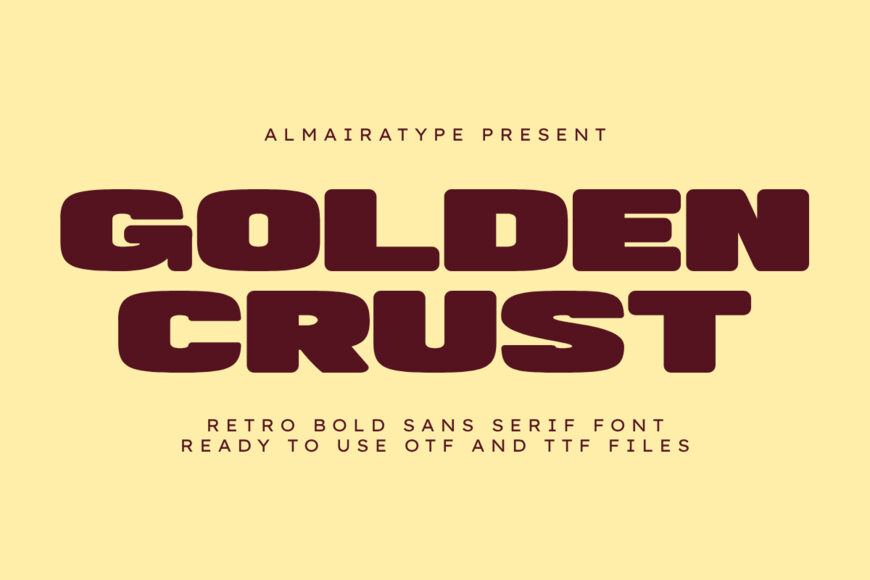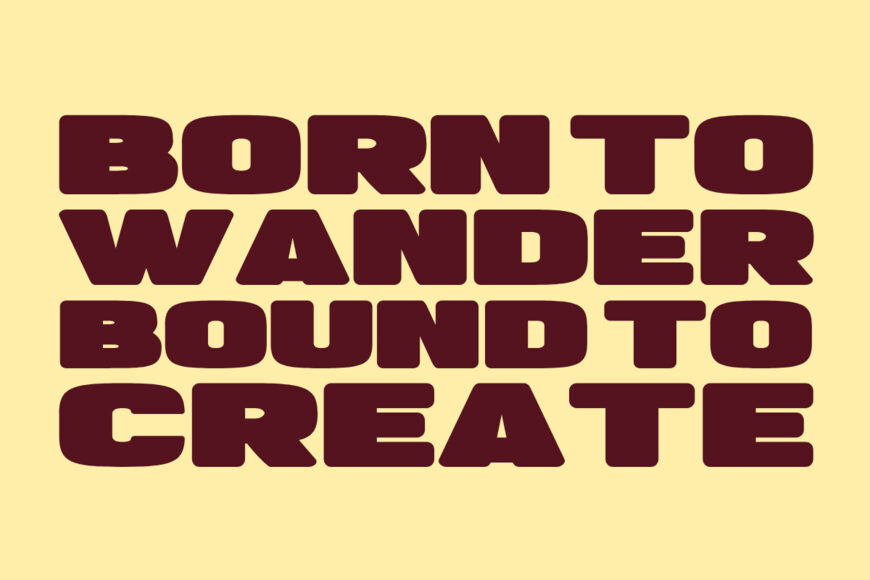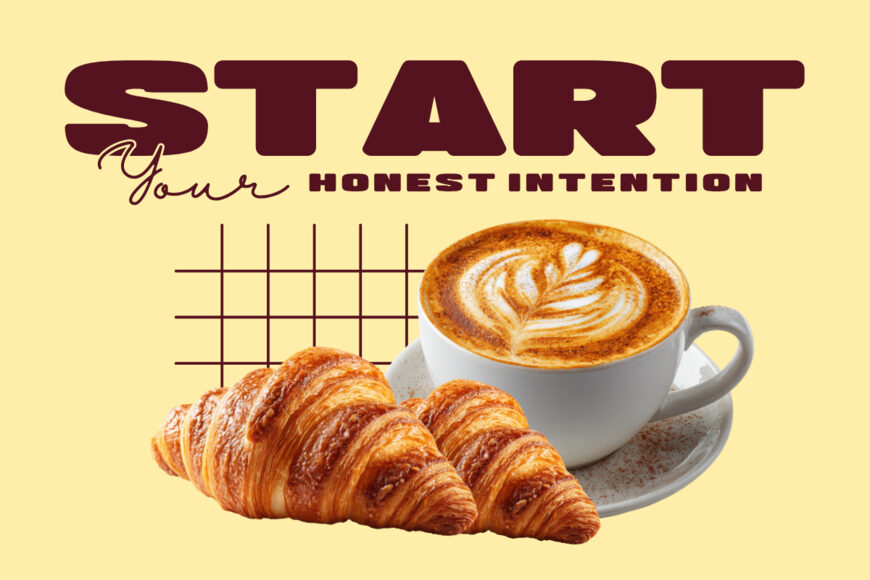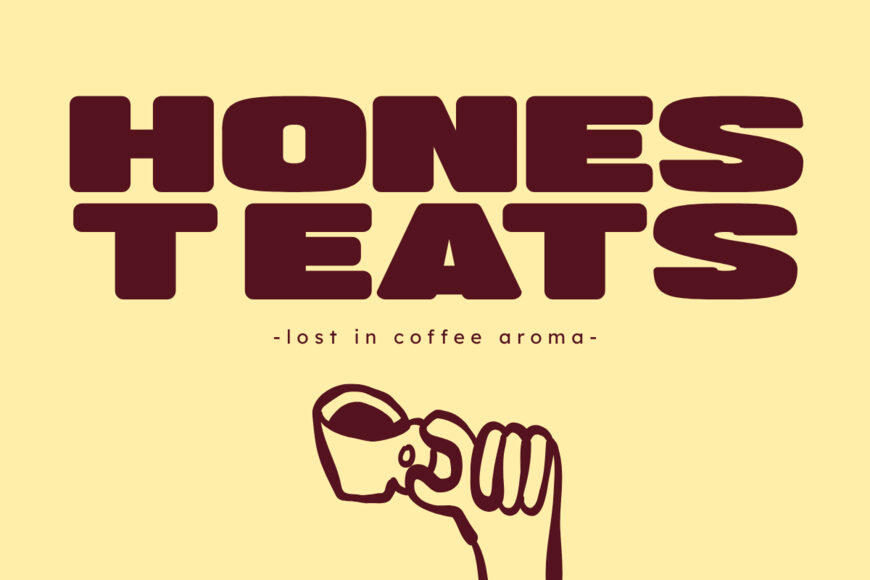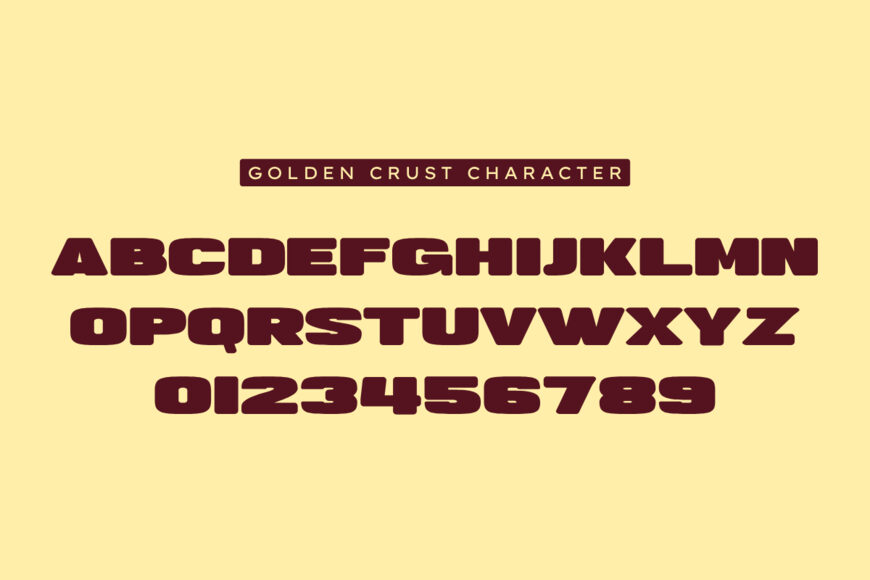
Make a bold, commanding, and delightfully nostalgic statement with Golden Crust, an ultra-bold retro sans serif font engineered for creators who want their headlines to pop with a fun, vibrant charm.
Meticulously structured with a heavy display weight, balanced tall geometric baselines, and subtly softened profiles, this versatile font brings an instant blend of vintage warmth and clean modern professionalism to any creative canvas.